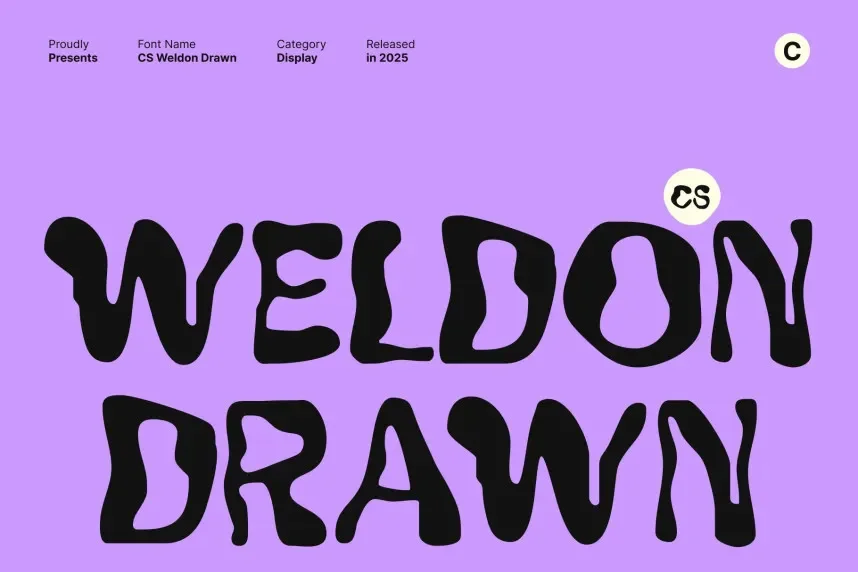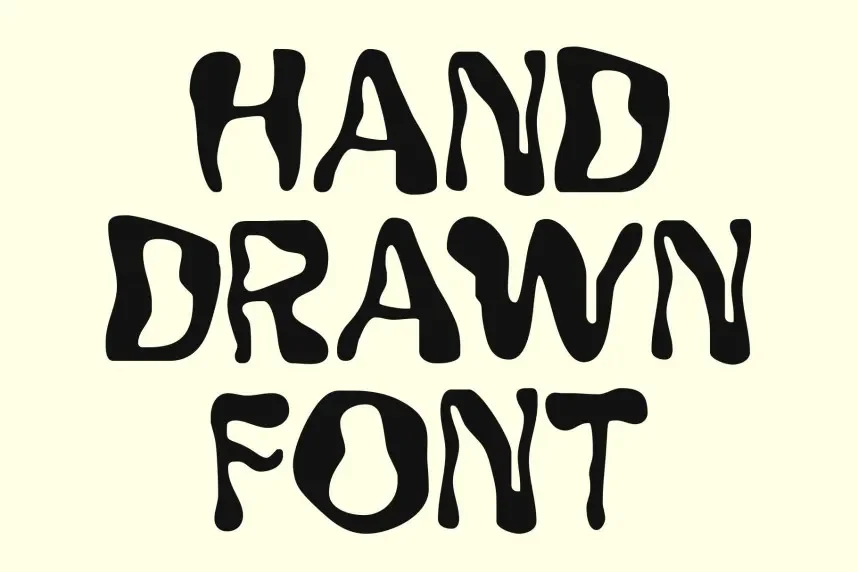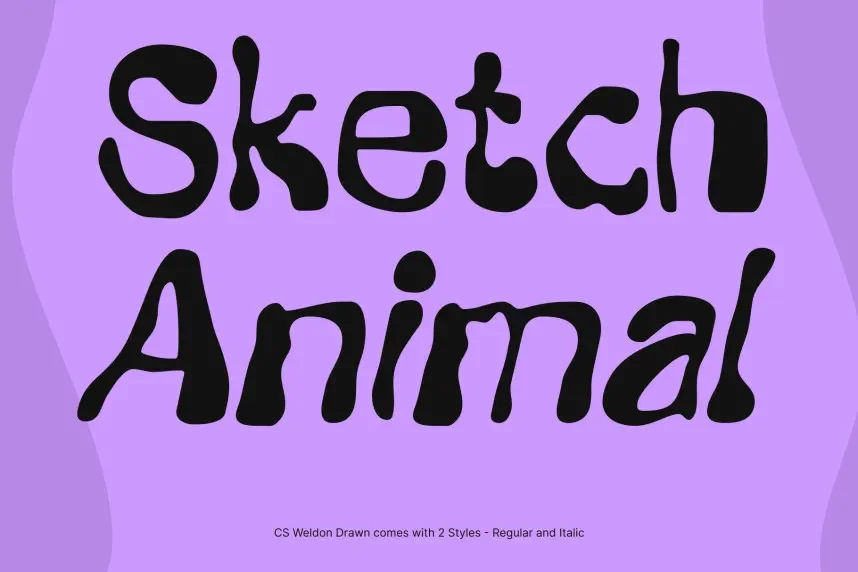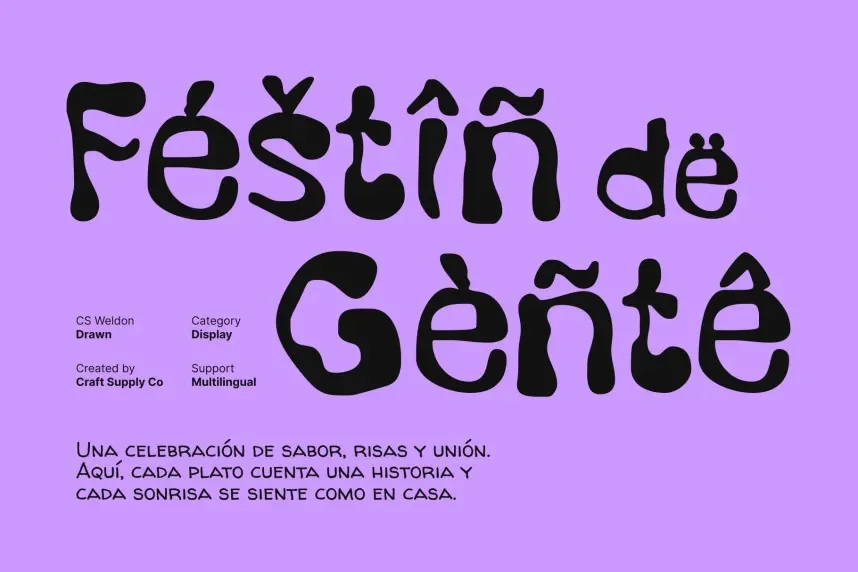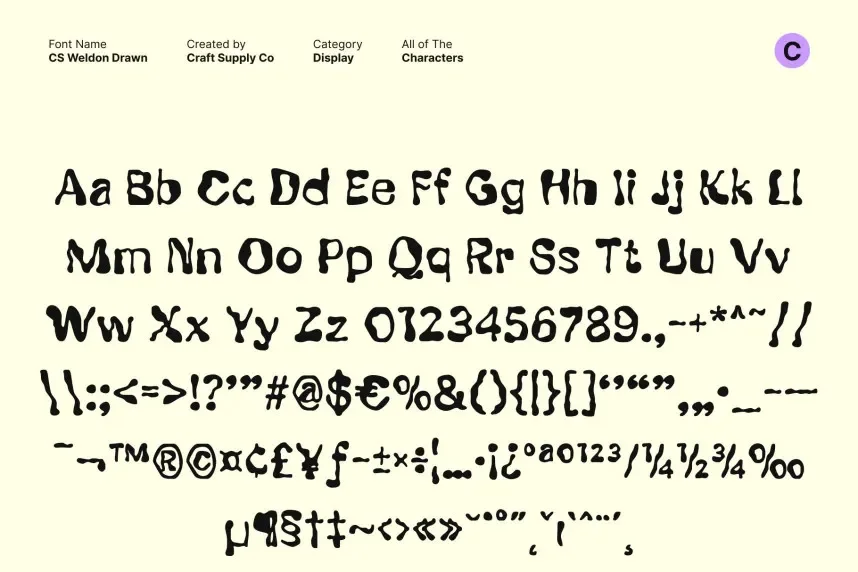
CS Weldon Drawn Font is a hand-drawn typeface that combines irregular strokes with a unique, artistic flair. Its expressive design is ideal for projects that need a personal touch, such as invitations, logos, and creative branding.